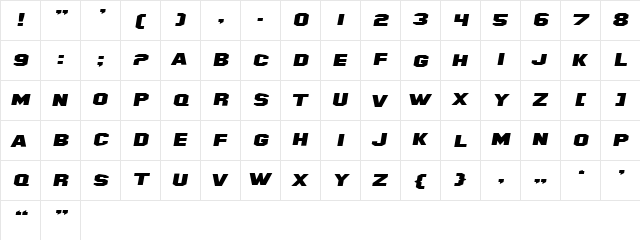
SF Hollywood Hills Extended Italic
Design Context for SF Hollywood Hills Extended Typeface
SF Hollywood Hills Extended echoes the hand-painted signage and woodblock typography of the American frontier, with a warm, rugged personality. The slanted form adds forward momentum and visual energy.
Perfect for barbecue restaurants, country music branding, vintage poster design, and rustic packaging.
Font Pairing: Combine SF Hollywood Hills Extended with a simple slab or neutral sans — period-accurate companions reinforce the vintage feel without competing for attention.
Pro Tip: Pair SF Hollywood Hills Extended with aged textures or distressed backgrounds to amplify its vintage personality.